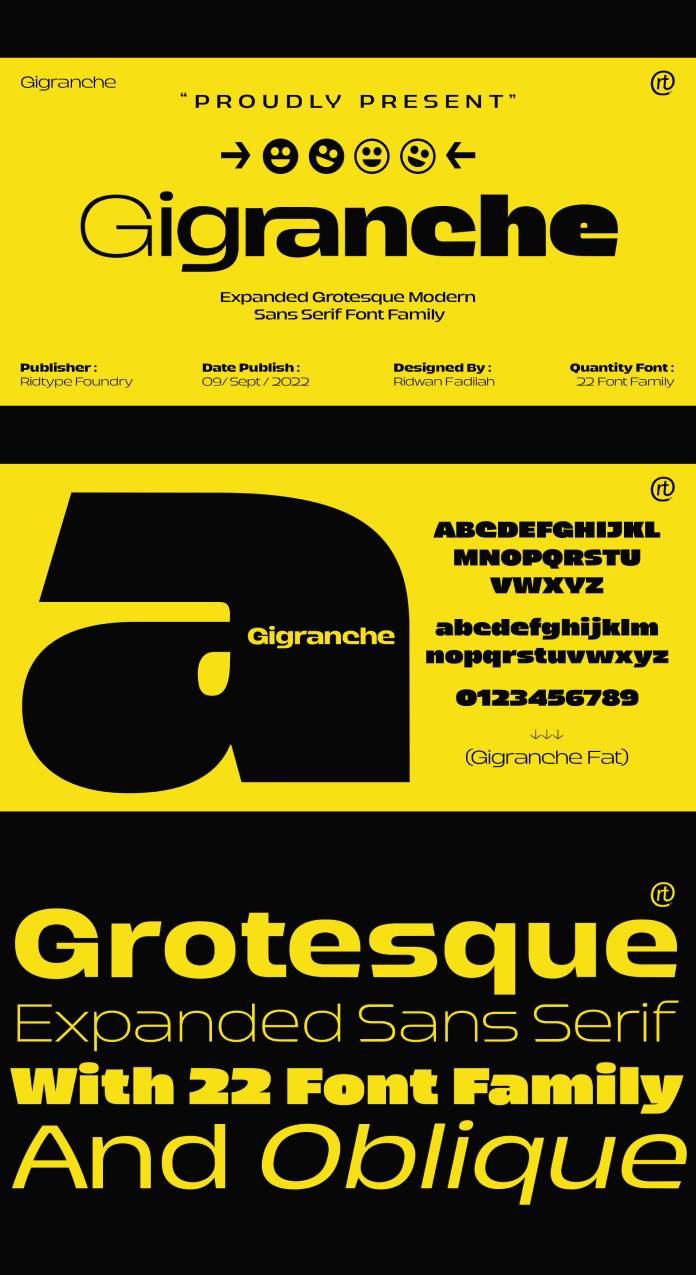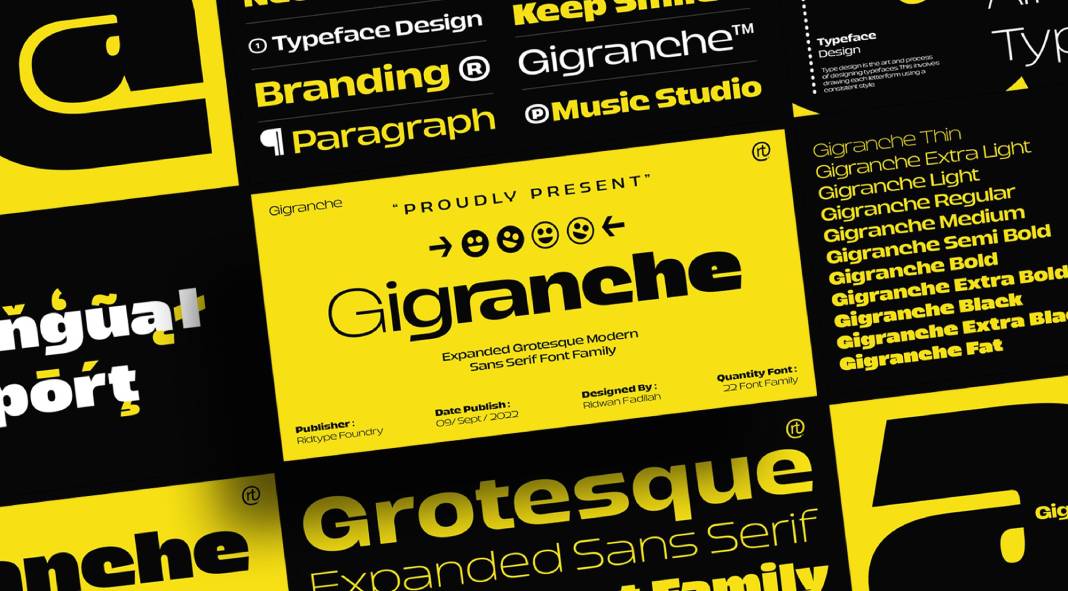
Check out Gigranche, an expanded grotesque sans serif font family for bold designs.
Created by typeface designer Ridwanfil, to Gigranche font family consists of 22 styles including plenty of weights and true italics. It’s a great typeface for modern designs. You can use it for branding projects as well as communication designs in all your print and web projects. Ridwanfil says that the Gigranche font family is inspired by streetwear which relies on courage, art, and strength. Gigranche is equipped with several symbols, fractional numbers, and additional glyphs for various languages.